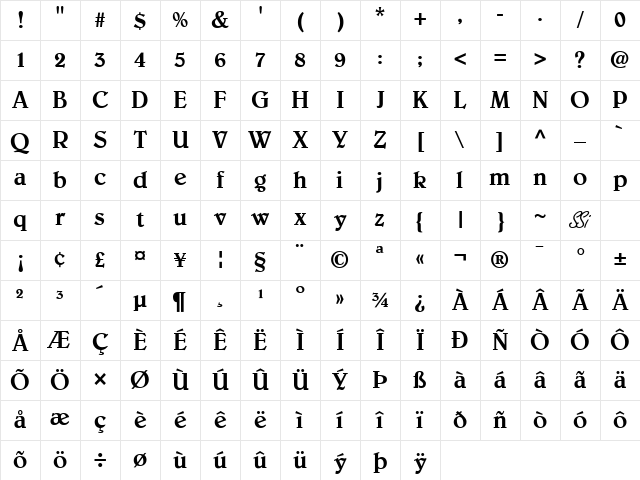
Barrister SSi Regular
Complete Barrister SSi Regular glyph index. Displaying only characters natively supported by Barrister SSi Regular font.
Design Context for Barrister SSi
Barrister SSi is a composed and adaptable typeface that performs quietly and consistently across a wide range of design contexts.
Pro Tip: Use Barrister SSi in both headline and body roles to test its range before committing to a single application.